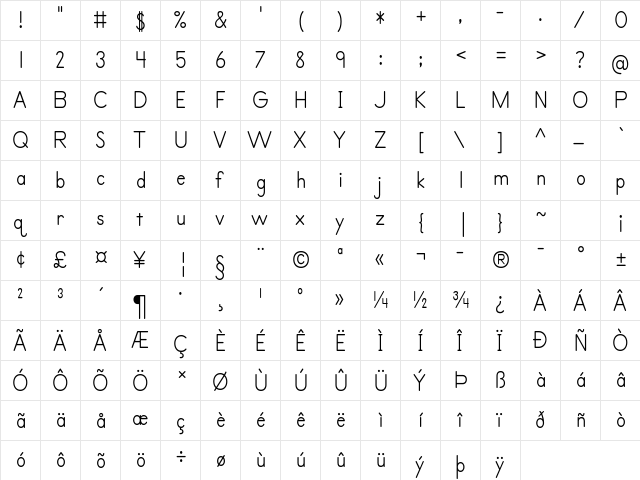
Primer Print
Design Context for Primer Typeface
Primer takes a measured approach to typography — its balanced proportions and neutral character make it a reliable workhorse for both digital and print work.
Pro Tip: Use Primer in both headline and body roles to test its range before committing to a single application.